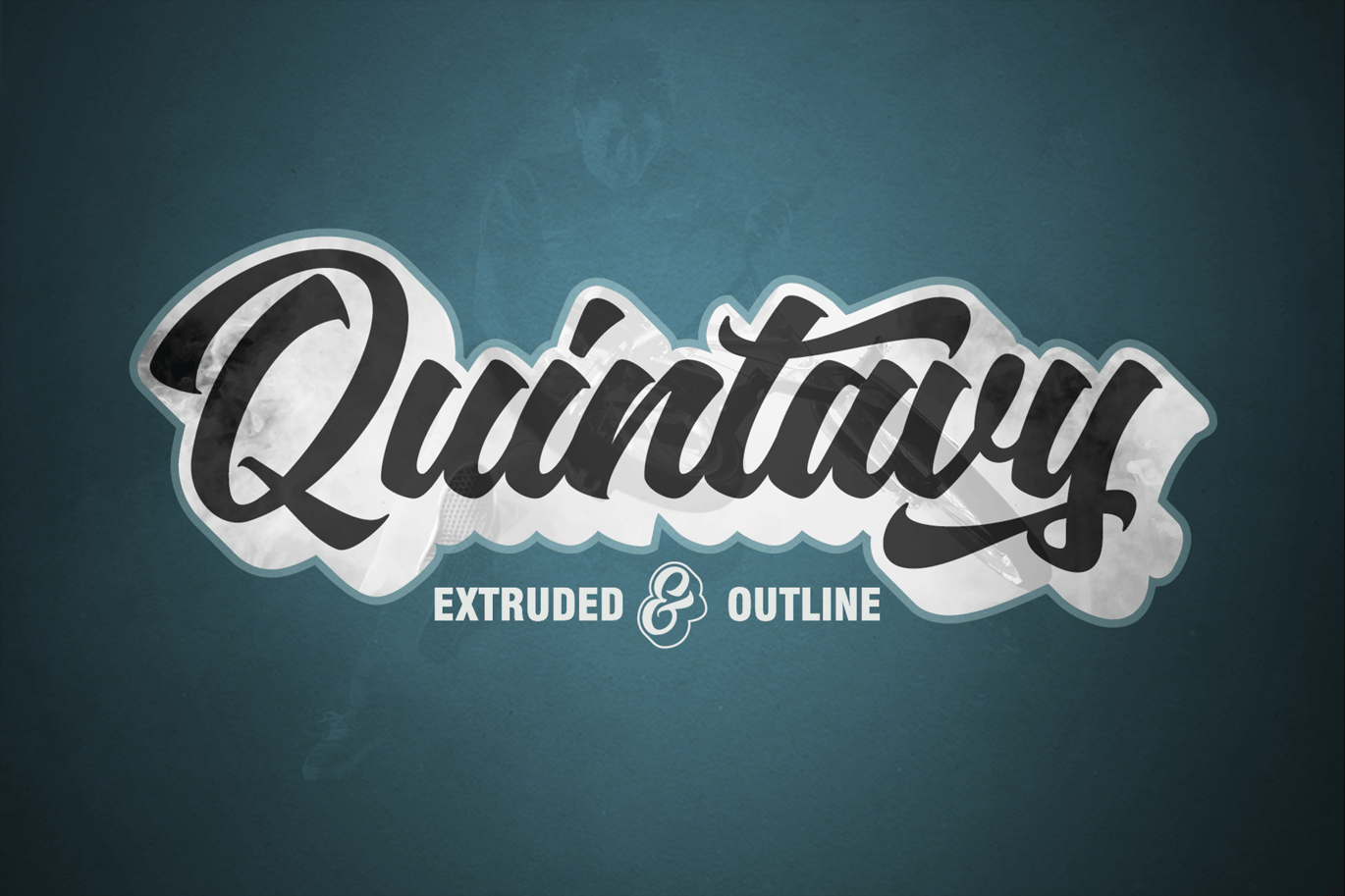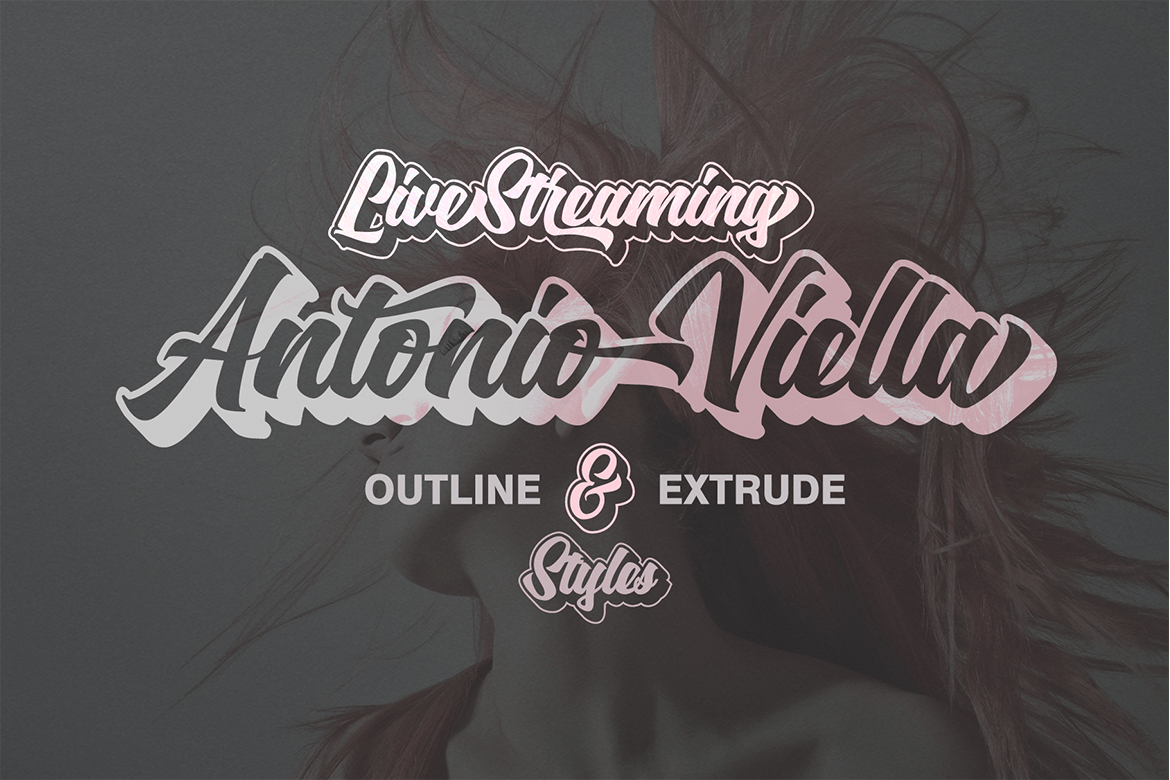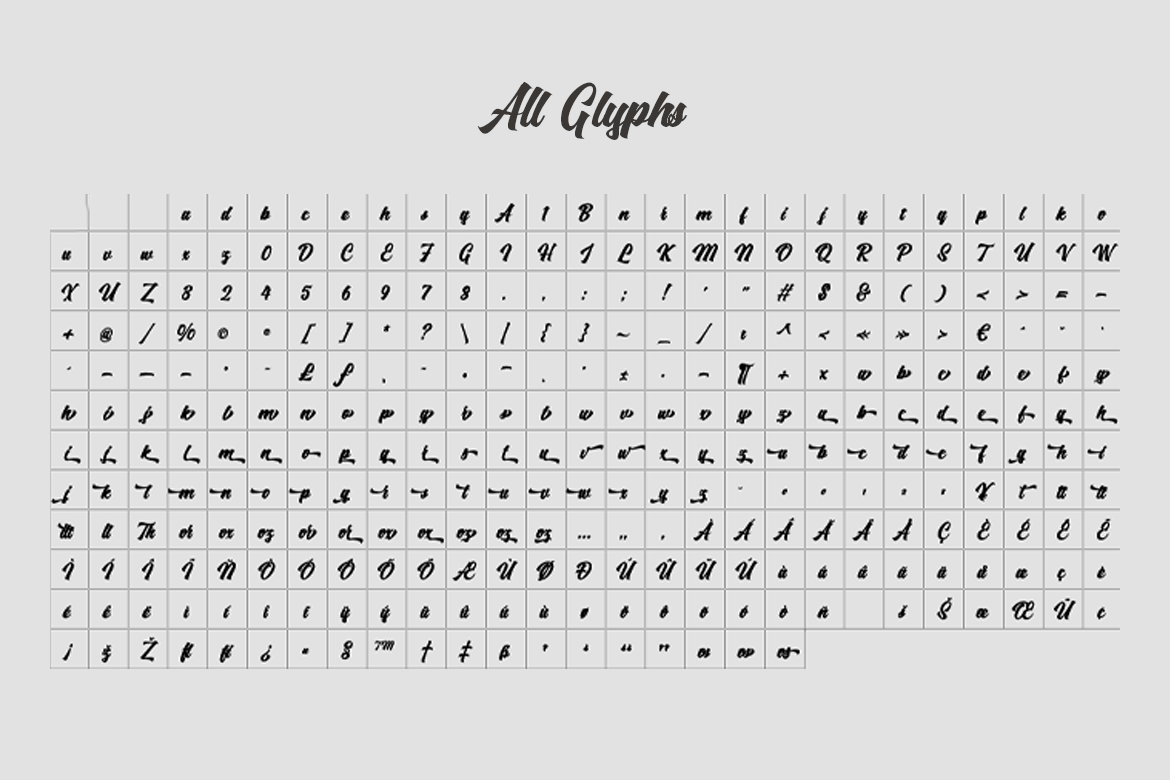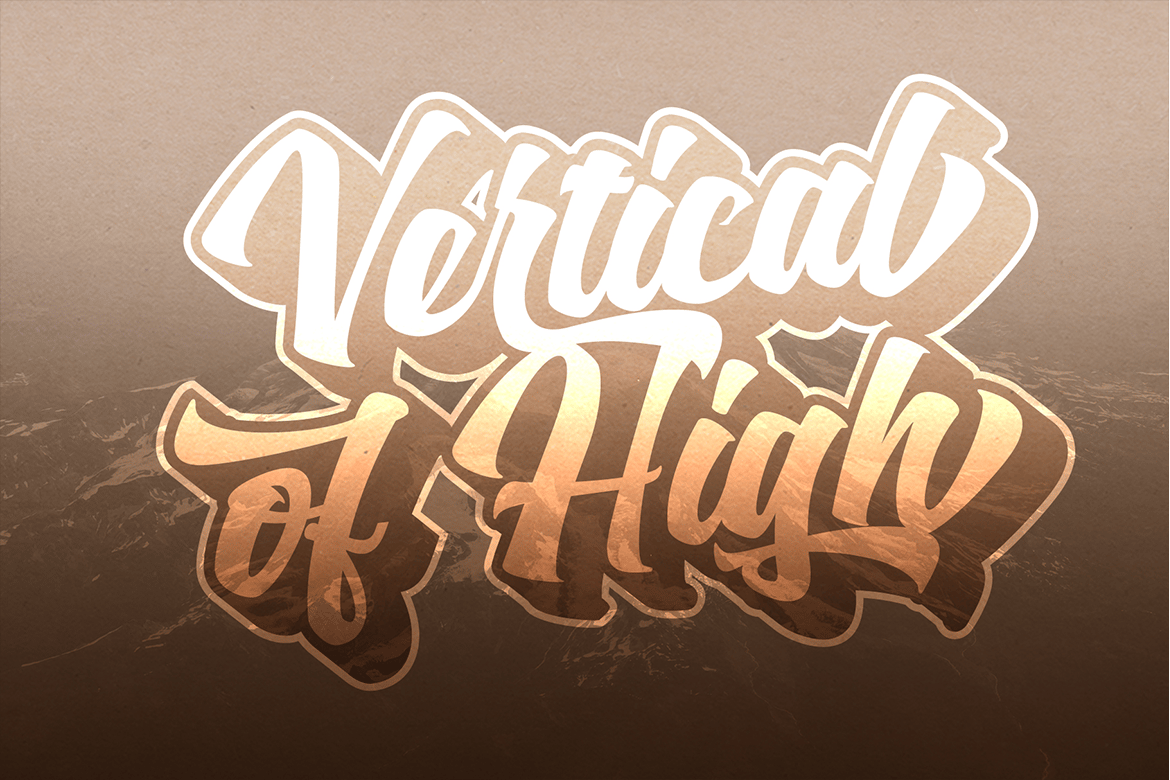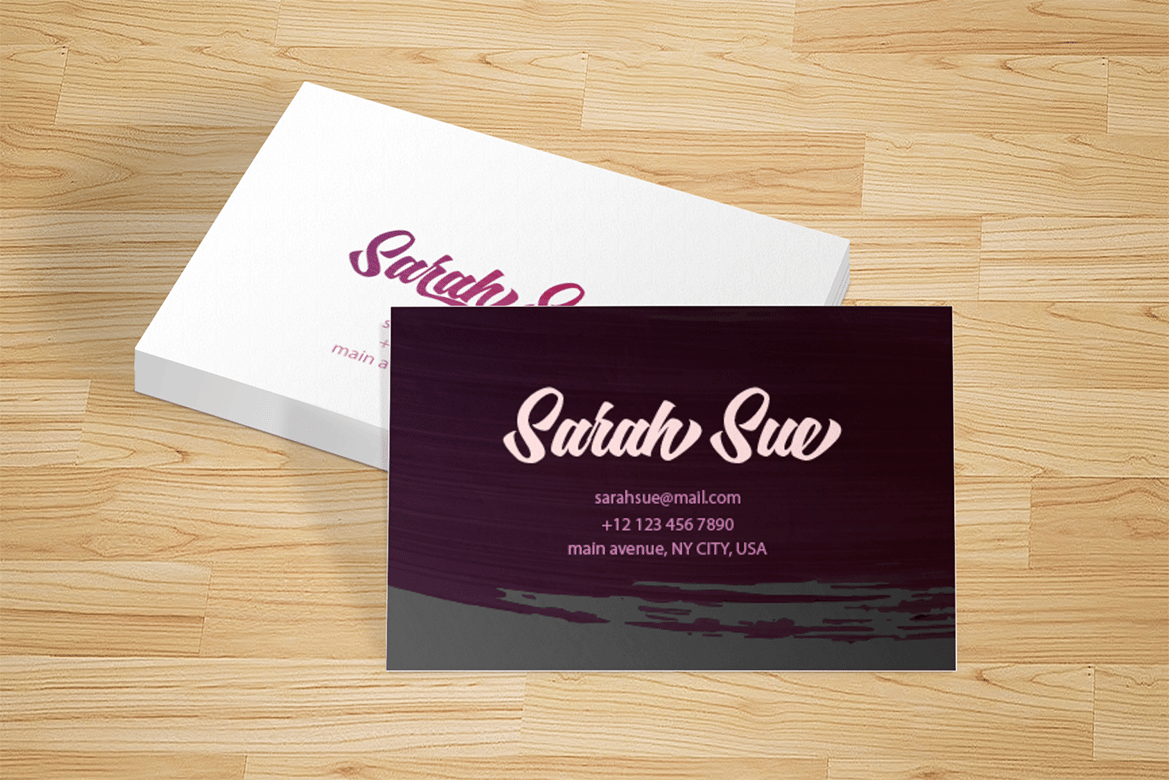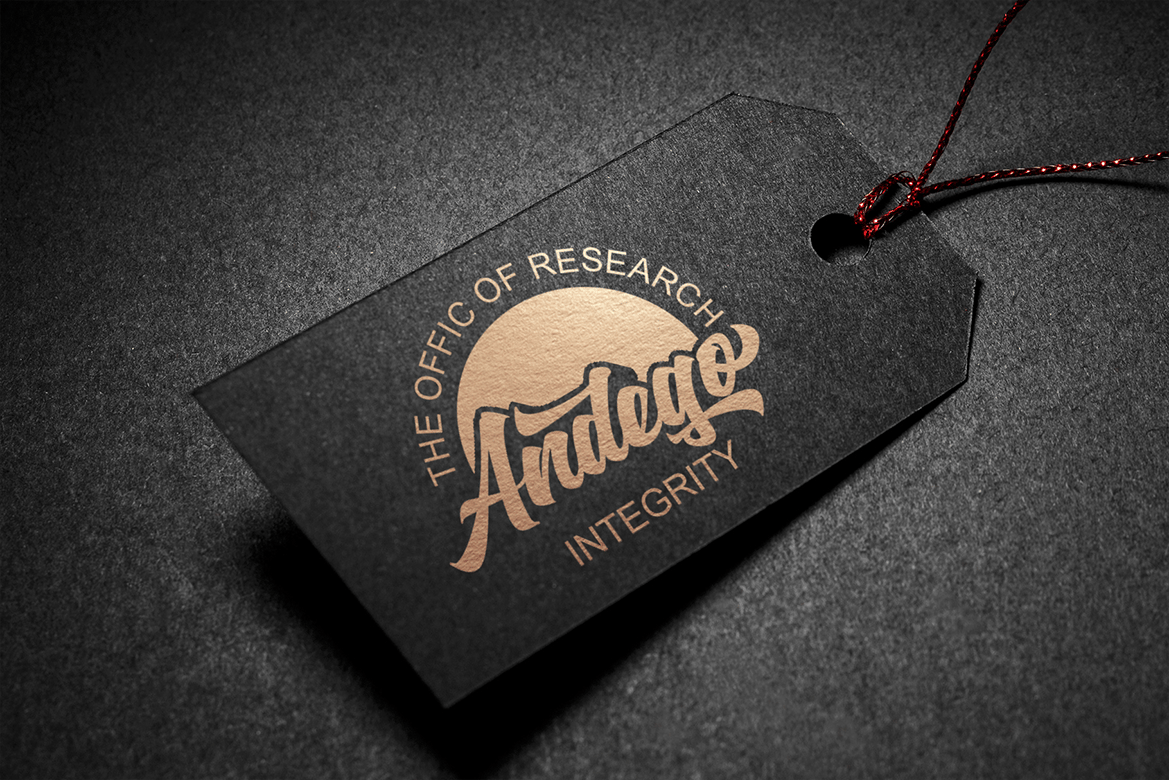
Quintavy Calligraphy Font
Quintavy This is my font based on a handwritten project in a modern calligraphy style in the modern era. very much with today’s retro typography designs.
Quintavy also comes with extra Extruded and Outline Font versions. as a function to create an extrusion effect for this font.
Can be used for various purposes.such as headings, logos, wedding invitation, t-shirt, letterhead, lable, news, posters, badges etc. Multilingual support for various languages including: French, German, Spanish, Portuguese, Italian, Dutch, Finnish, Swedish, and more.
Quintavy works great in any branding, logos, magazines, films. The different weights give you a full range of whole hosts of applications, while the outlined fonts give a real modern feel to any project.